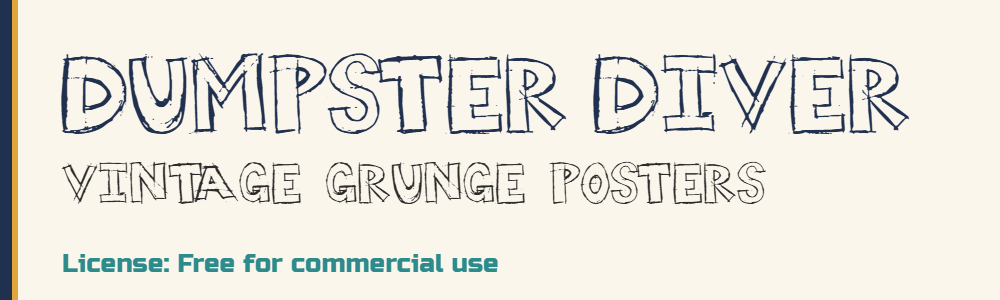
To make that easier, we pulled together 16 fonts from the VectorDad font library whose licenses we verified one-by-one as cleared for commercial use. Each one below links to its product page, lists its actual license statement, and notes the original designer or source. They span clean sans-serifs, classic serifs, handmade scripts, and bold display faces, so you can build a whole product line from this list alone.
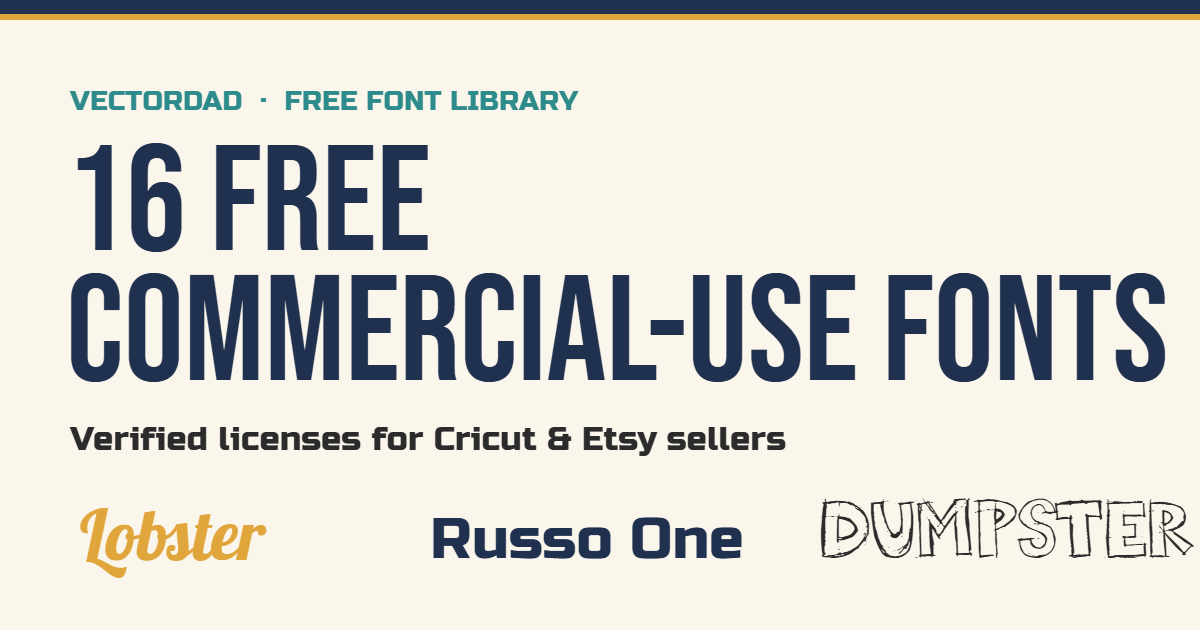
Sans-serif fonts (clean, modern, easy to read)
Bebas Neue
A tall, all-caps condensed sans that has become the go-to for bold headers, logos, and shirt designs.
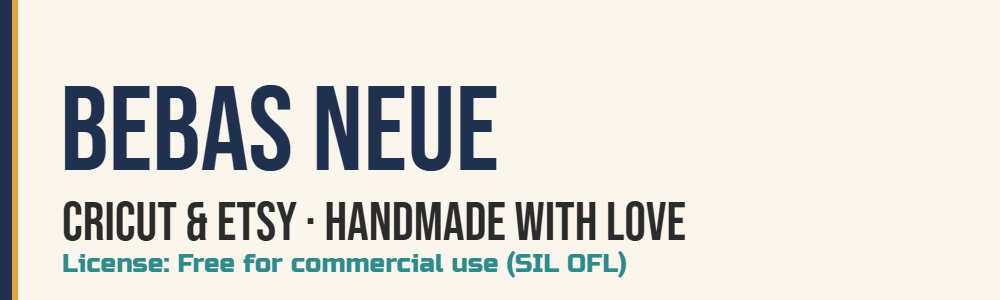
Russ Times
A heavy, geometric sans with a sturdy, sporty feel — great for monograms and statement text.
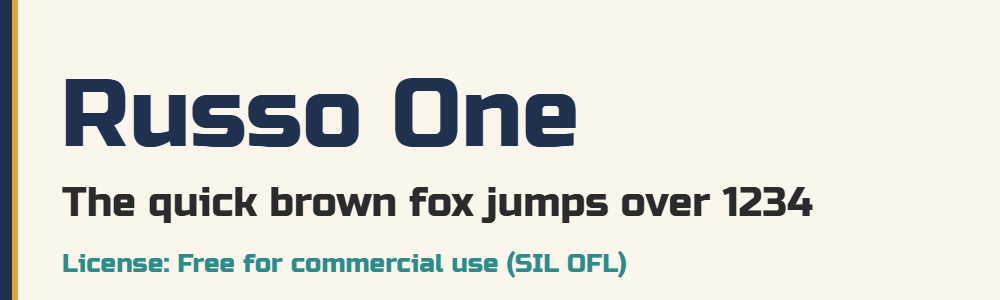
Nohemi
A contemporary geometric sans with even strokes — a clean workhorse for branding and packaging.
Rated R
A humanist sans with friendly proportions that stays readable at small sizes — good for body text on labels.
DF Charlie Go
A relaxed, hand-lettered sans with a casual marker feel for playful, personal designs.
Serif fonts (classic, trustworthy, elegant)
Movie Rating
A refined book serif with classic proportions — ideal for invitations, quotes, and editorial layouts.
Agreloy
A warm text serif with calligraphic detailing that reads beautifully in longer lines.
Script & calligraphy fonts (handmade, wedding, signage)
Park Avenue
A timeless connecting script with elegant swashes — a favorite for boutique branding and menus.
Forearm Tattoo
A thick, bouncy brush script with rounded curves — perfect for craft labels, mugs, and signs.
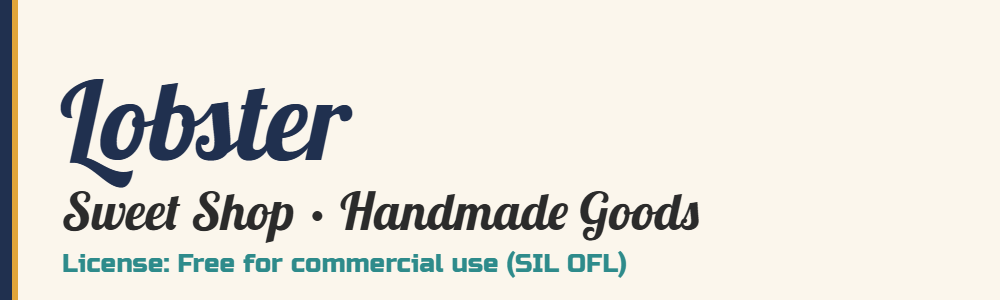
New Madura
A modern brush calligraphy face with energetic strokes for quotes and apparel.
Cursive
A casual, everyday cursive that feels handwritten — friendly for greeting cards and stickers.
Rundschrift Cat
A vintage German round-hand script with old-world charm for labels and badges.
Display & decorative fonts (posters, themes, statement pieces)